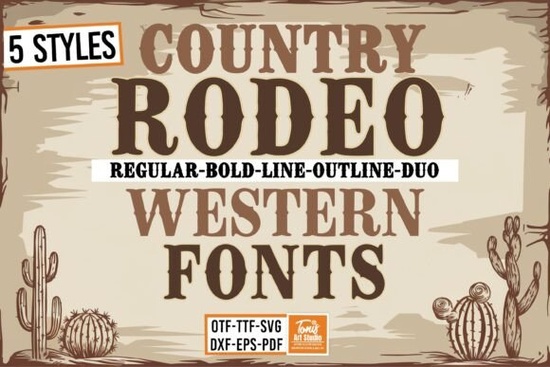
If you're working on a project that calls for bold, rustic charm think saloon signs, cowboy-themed apparel, or rodeo event posters the Rodeo Bundle Font delivers exactly that vibe without overcomplicating your workflow. This Creative Fabrica bundle includes five distinct styles: Regular, Bold, Line, Outline, and Duo, giving you flexibility whether you’re designing for screen, print, or vinyl cutting machines like Cricut and Silhouette.
What makes this bundle especially useful is how each style complements the others. Need a strong headline for a Western-style logo? The Bold version stands out with confidence. Want something more subtle for layered designs or engraved wood signs? The Outline or Line variants add texture without overwhelming your layout. And because SVG cut files are included, crafters can jump straight into making physical products without extra conversion steps.
Who is this font bundle really for?
The Rodeo Bundle Font shines in hands-on creative work. If you run a small business selling custom t-shirts, mugs, or wall art with a country or Americana theme, this set gives you ready-to-use typography that feels authentic not cartoonish. Print-on-demand sellers will appreciate how well the fonts scale across different product types, from tote bags to bottle labels.
Crafters using Cricut Design Space or Silhouette Studio will find the included SVG files particularly handy. Unlike standard fonts that sometimes need tracing or cleanup before cutting, these files are pre-optimized for precision. That means less time troubleshooting and more time creating.
How does it compare to other display fonts?
Not all Western-style fonts offer this level of variety within a single bundle. Many lean too heavily into gimmicks excessive spurs, exaggerated serifs, or inconsistent spacing that limit their practicality. The Rodeo Bundle keeps its design grounded: readable at small sizes, impactful when large, and consistent across weights.
Practical uses beyond the obvious
- Event branding: Rodeos, county fairs, line dancing nights, or BBQ festivals all benefit from cohesive visual identity and this bundle provides multiple styles to maintain consistency across posters, tickets, and social media graphics.
- Product packaging: Hot sauce labels, jerky wrappers, or craft beer cans with a frontier twist gain instant character with the Bold or Duo versions.
- Home décor: Wood-burned signs, laser-cut wall art, or embroidered pillow quotes look professional thanks to clean outlines and even stroke widths.
- Do you need multiple weights or just one standout style? This bundle gives you five so it’s cost-effective if you plan varied applications.
- Are you using it for digital design only, or also for cutting machines? The included SVG files save significant prep time for physical crafts.
- Will you pair it with other fonts? Test combinations early Western fonts can dominate, so choose companions with neutral forms (like clean sans-serifs) unless contrast is intentional.
Bottom line: if your project leans into heritage, adventure, or Americana storytelling, the Rodeo Bundle Font offers reliable, versatile tools without unnecessary frills. It’s not trying to be everything it’s focused, usable, and built for creators who value both aesthetics and efficiency.